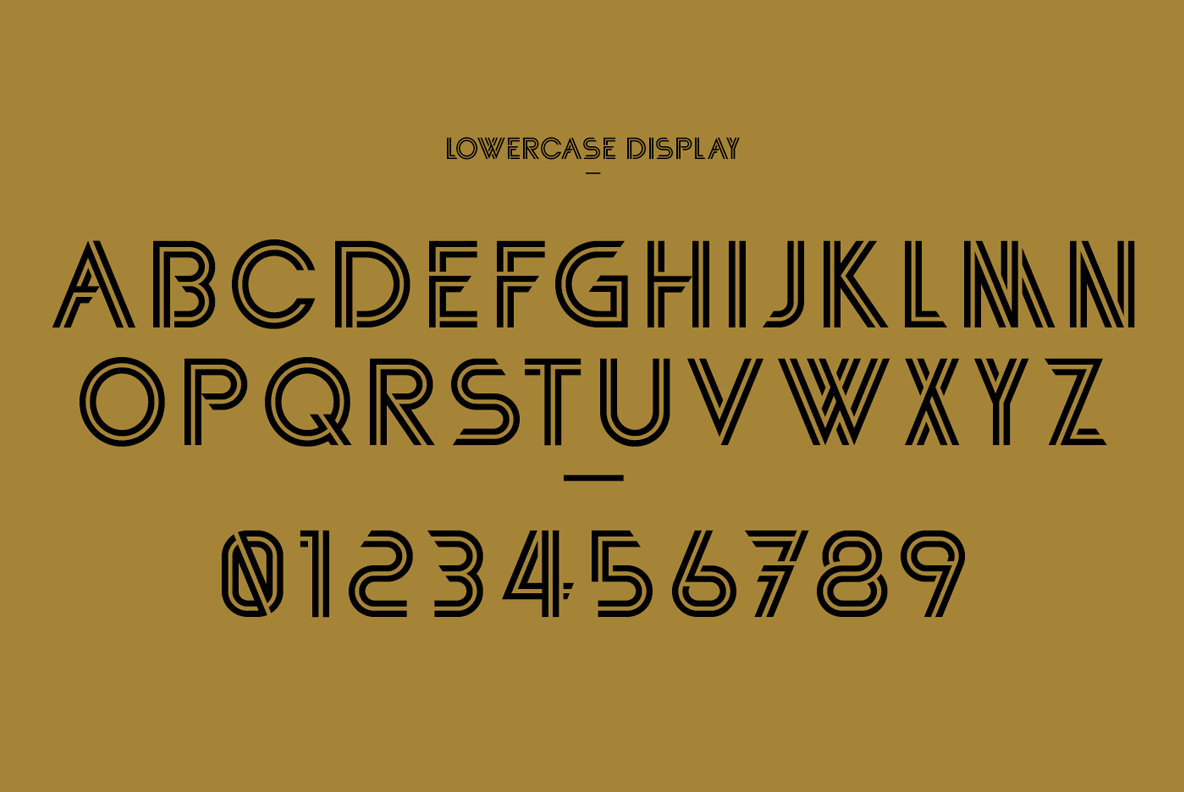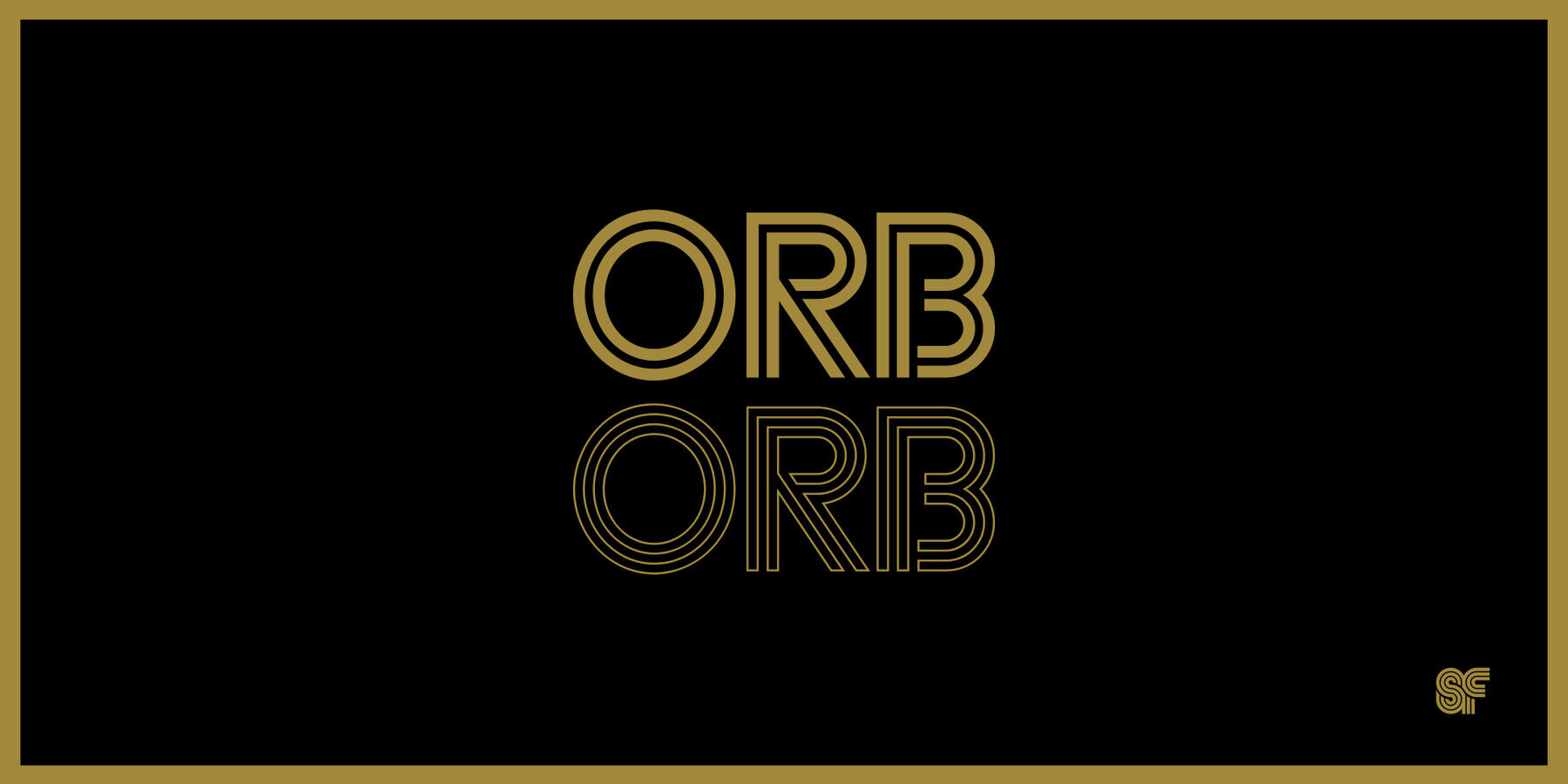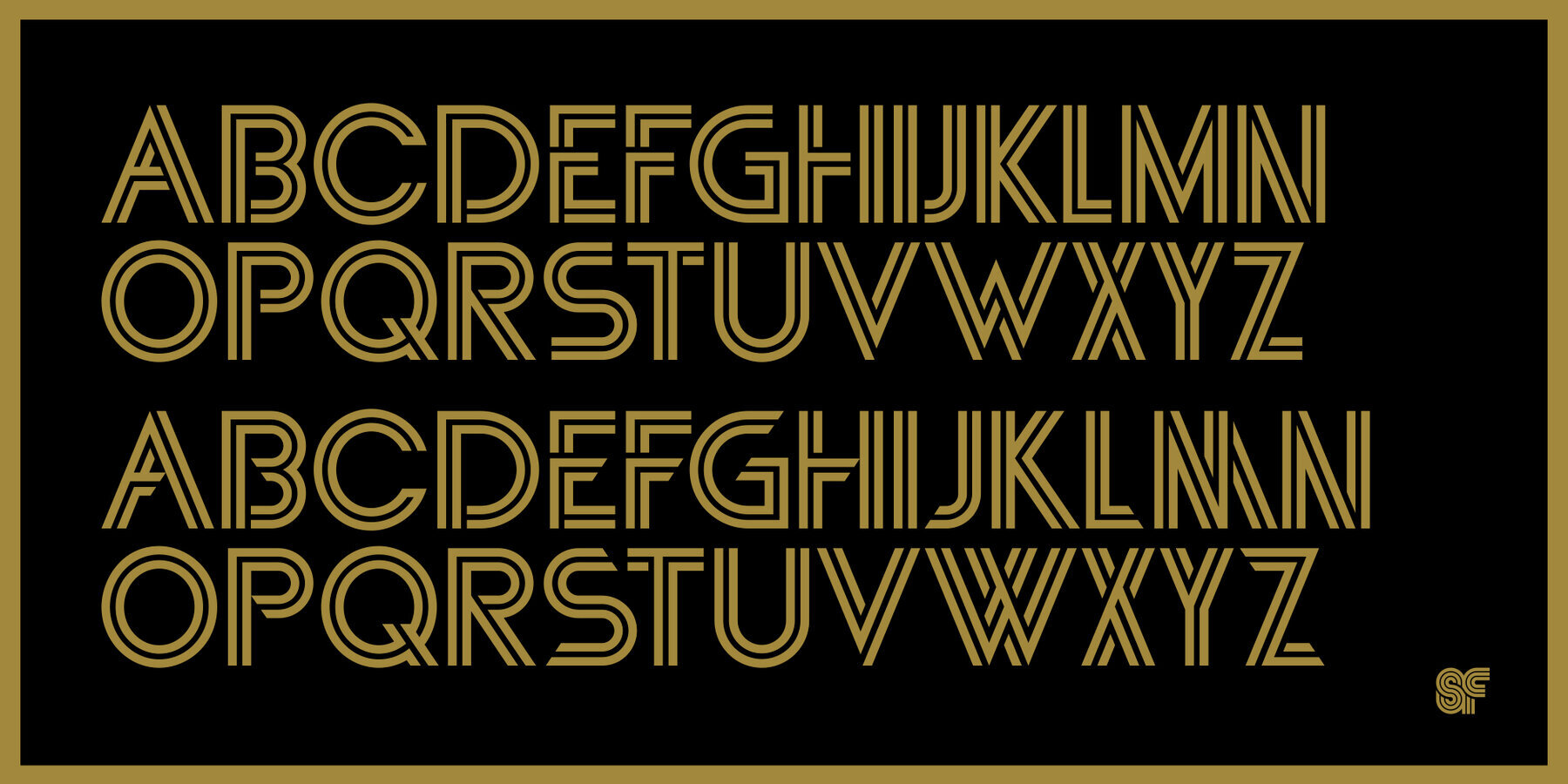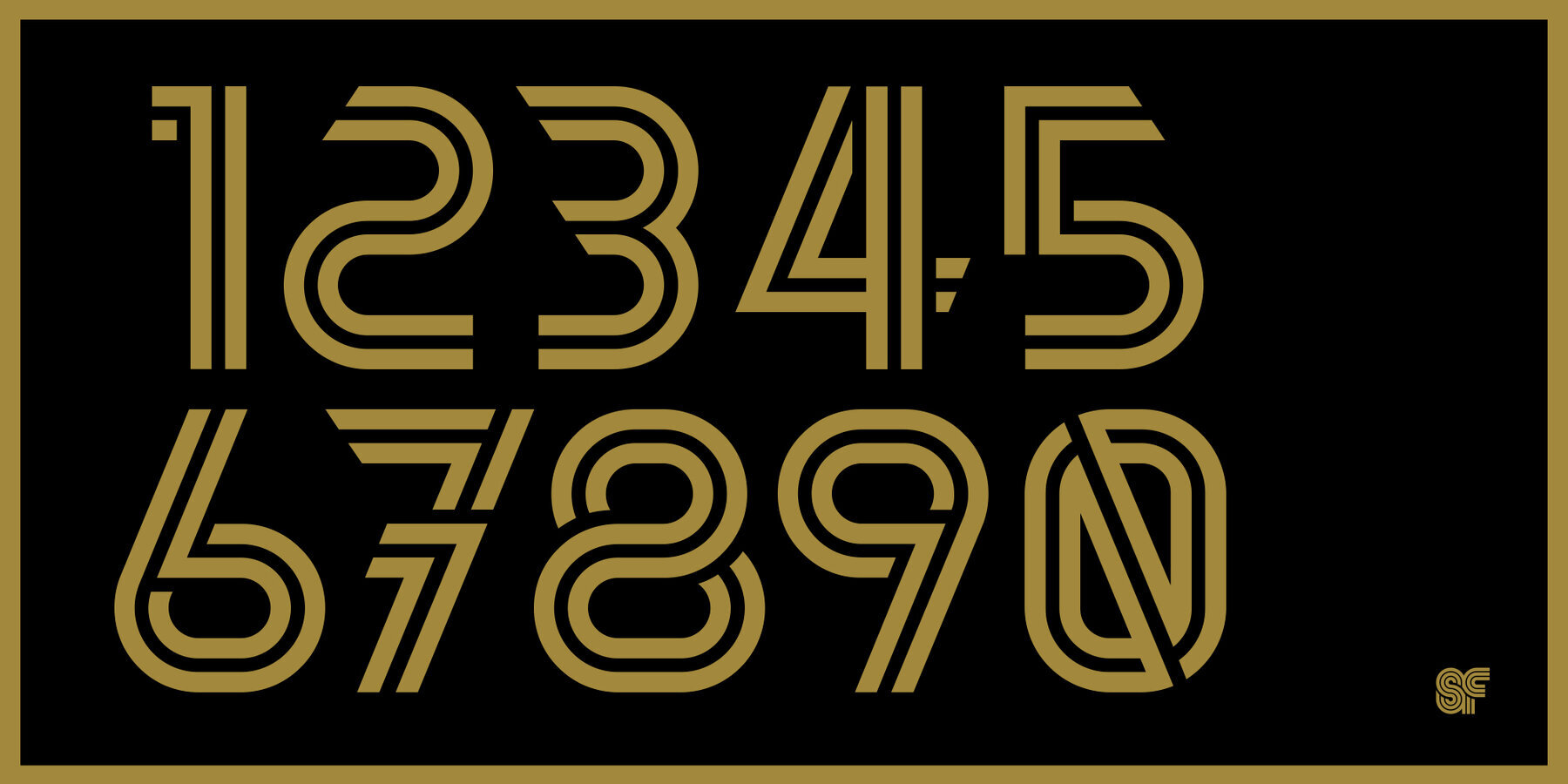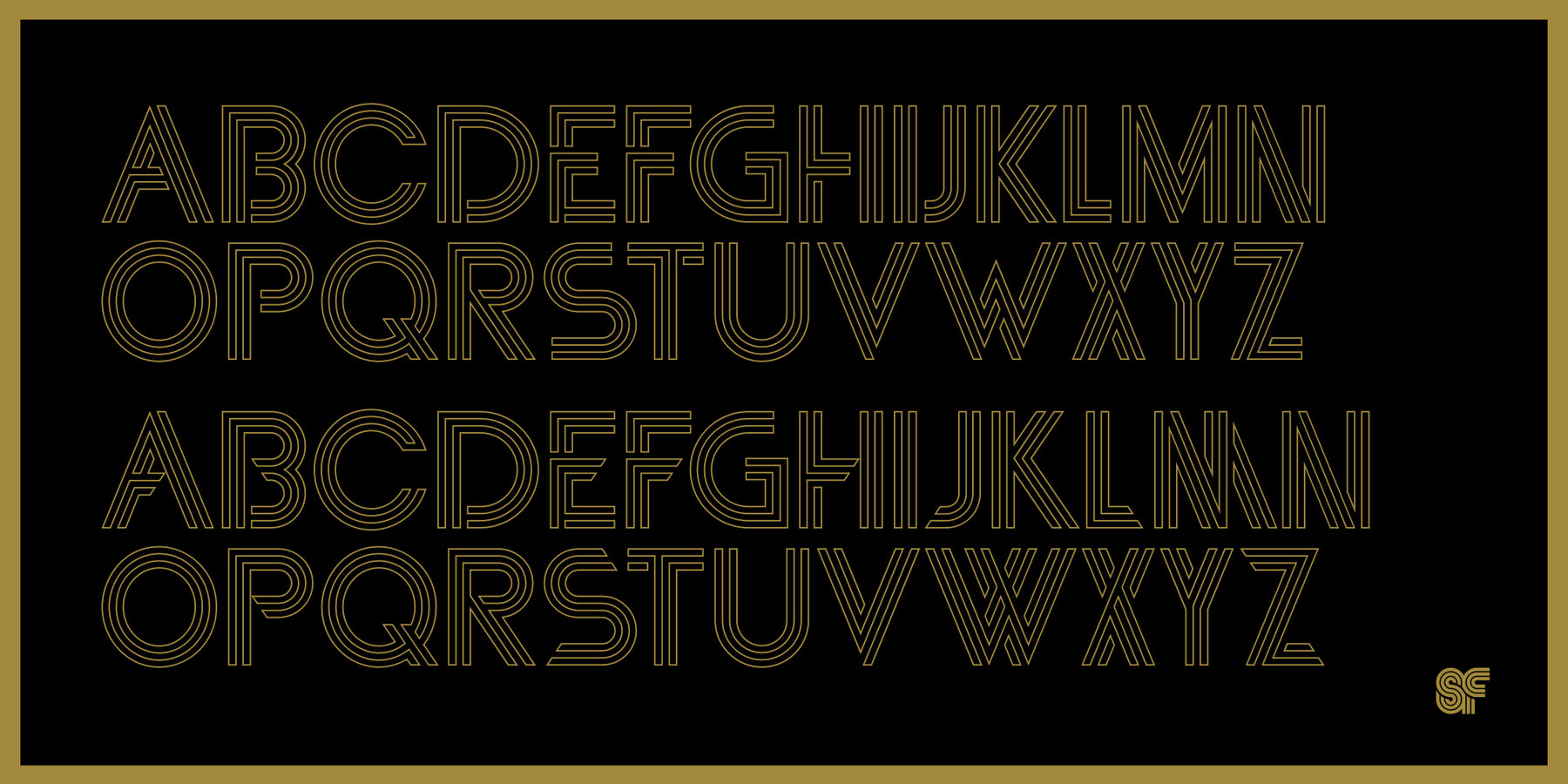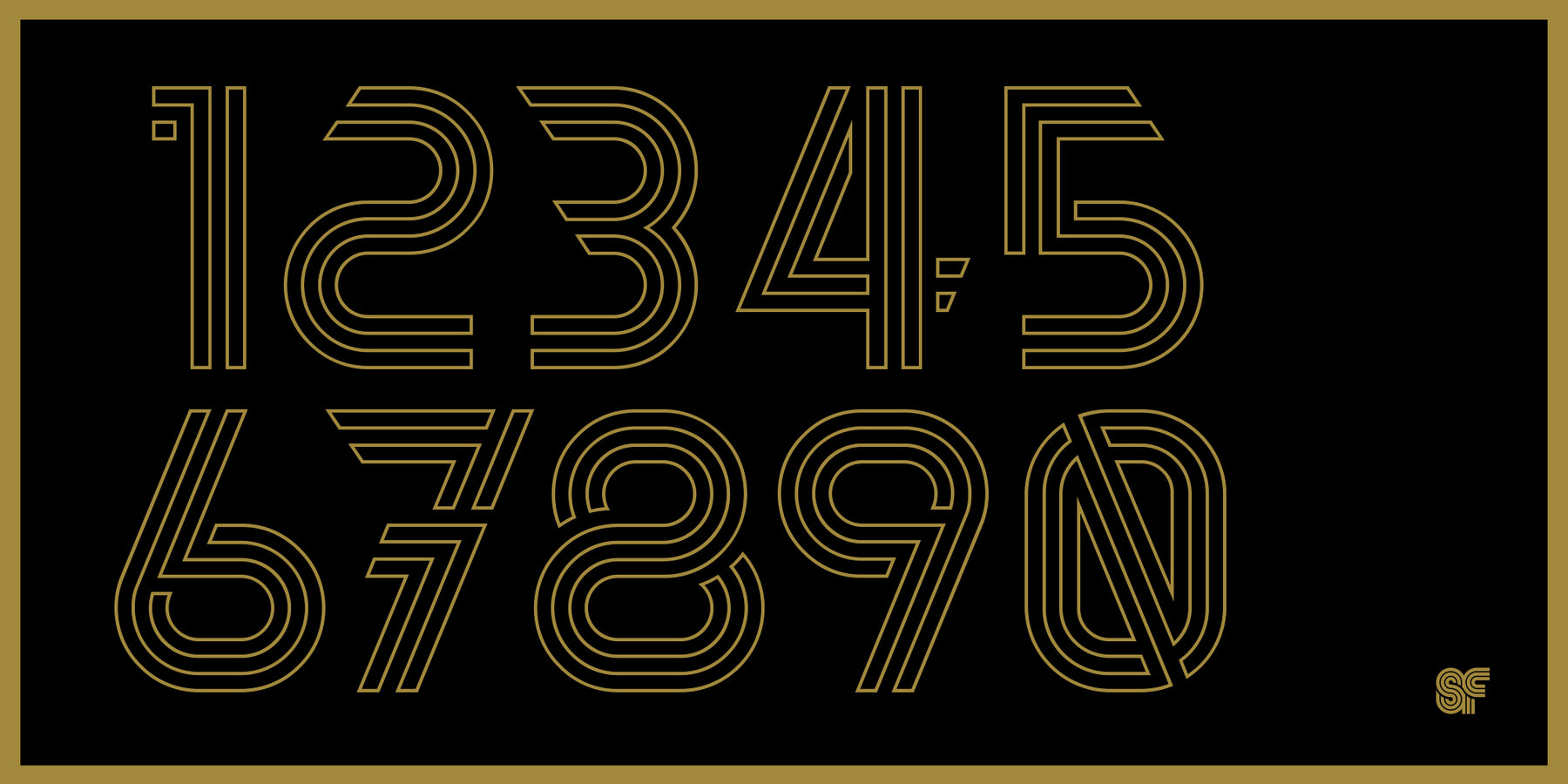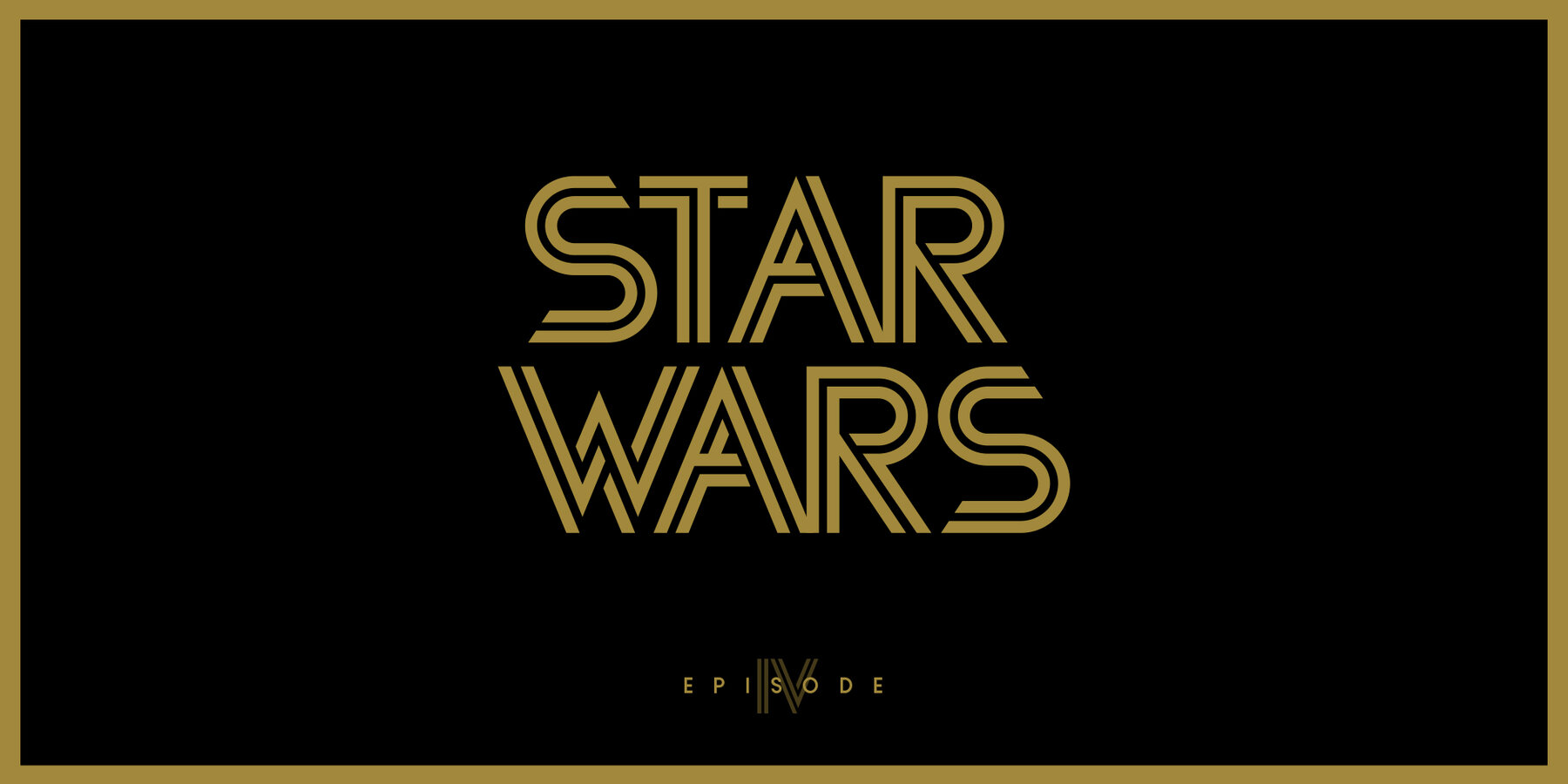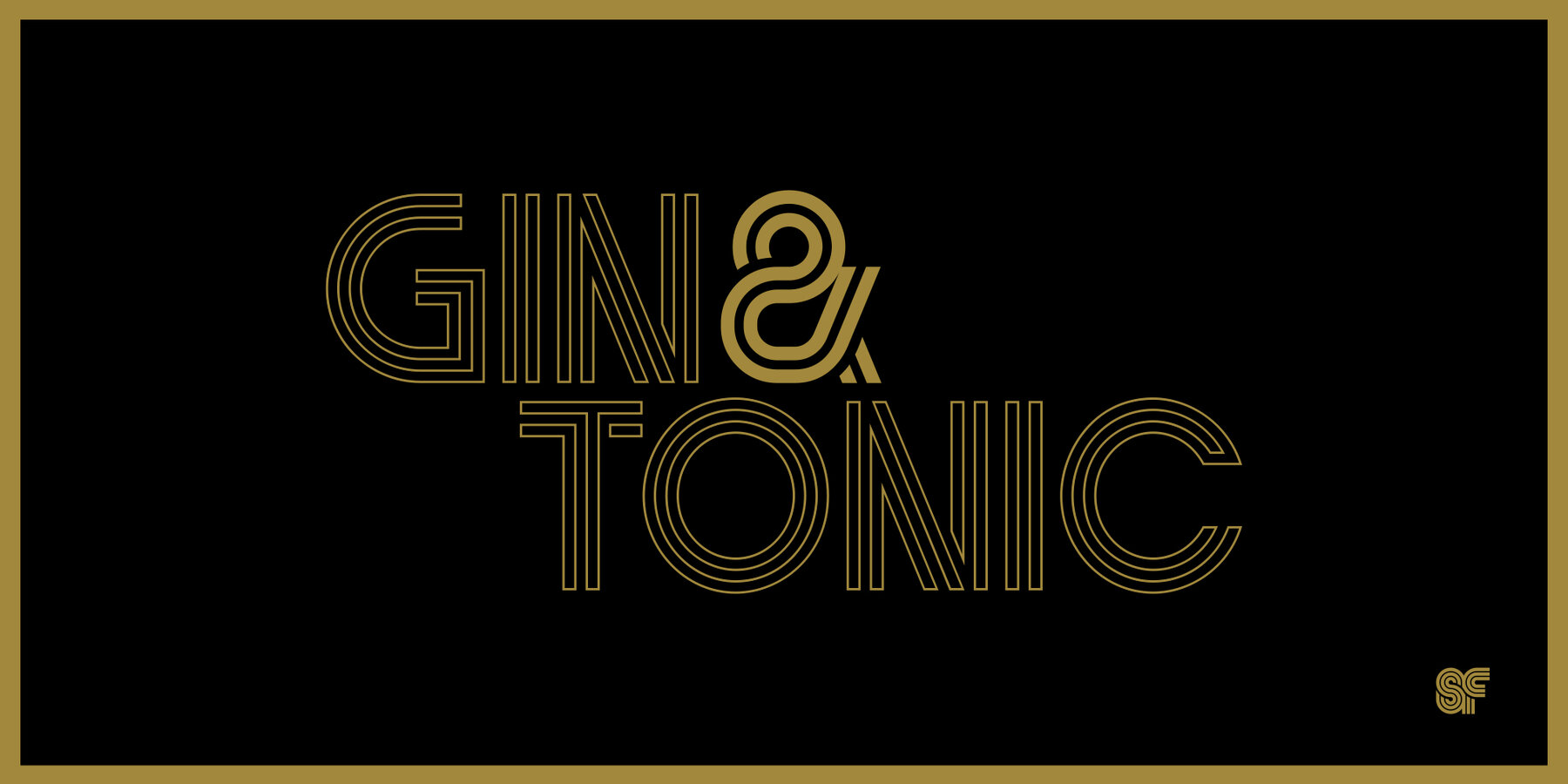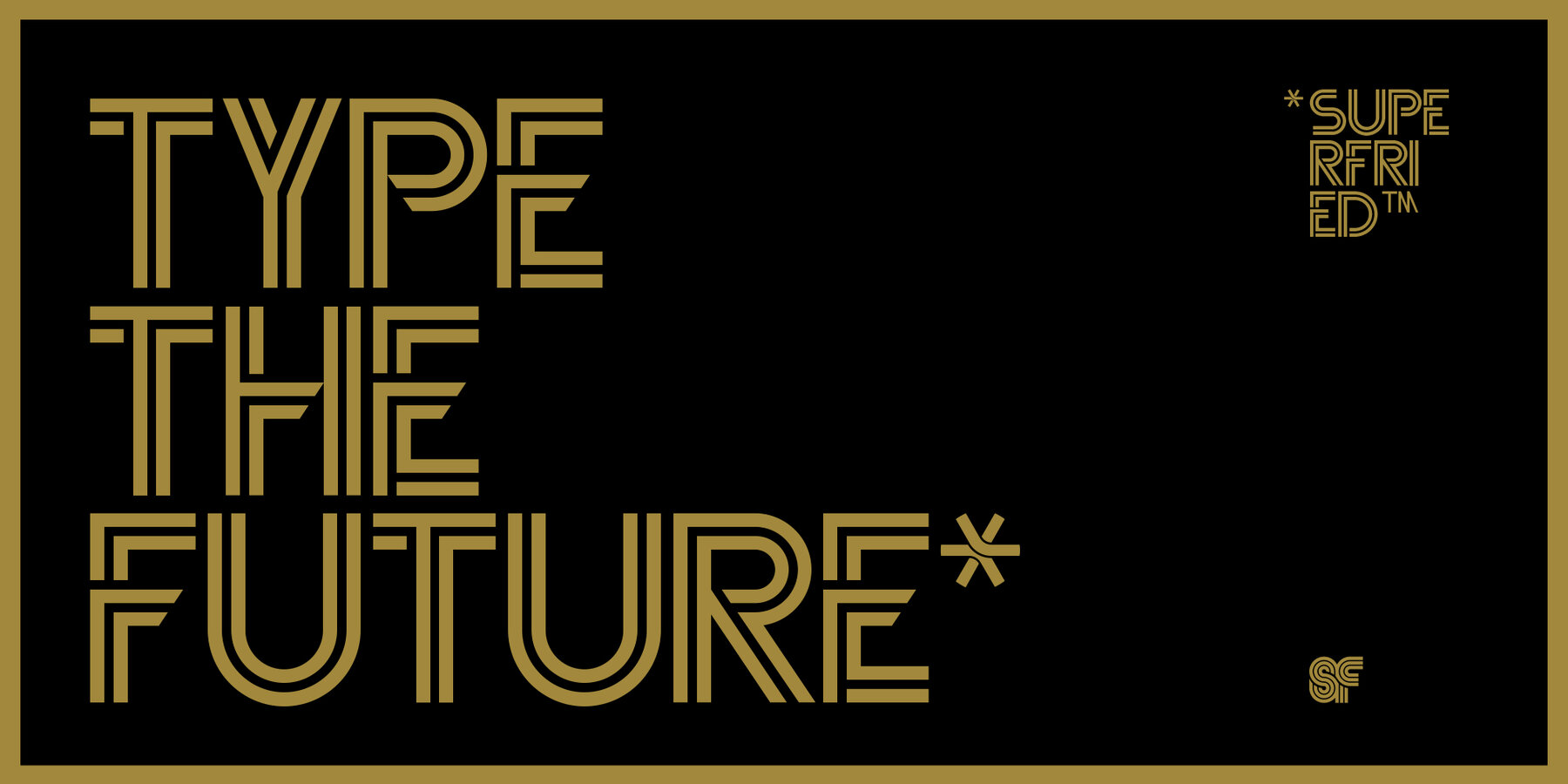
Orb Font
Orb Display
Orb Outline
Orb by Superfried is an elegant, geometric uppercase display typeface. The glyphs are constructed from two concentric paths featuring intricate interactions and angled incisions, which lead to a very distinct look and feel. Orb includes 266 glyphs in two styles switched via the shift key and is available in two weights: display and outline.
Orb has been updated with revised spacing and technical improvements.